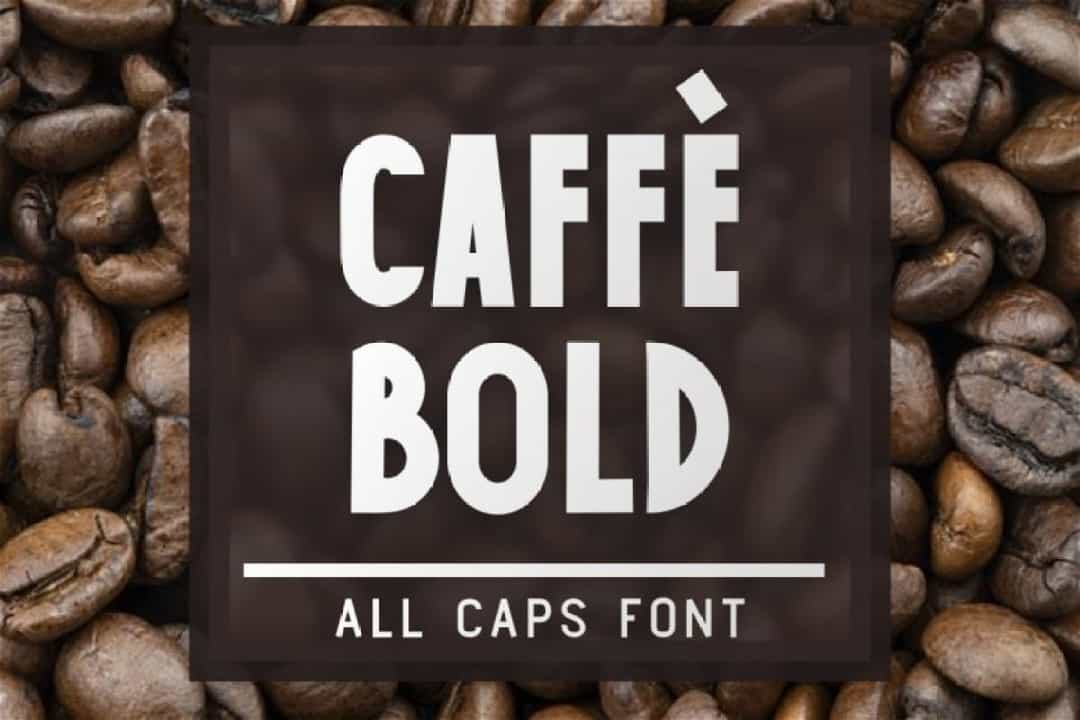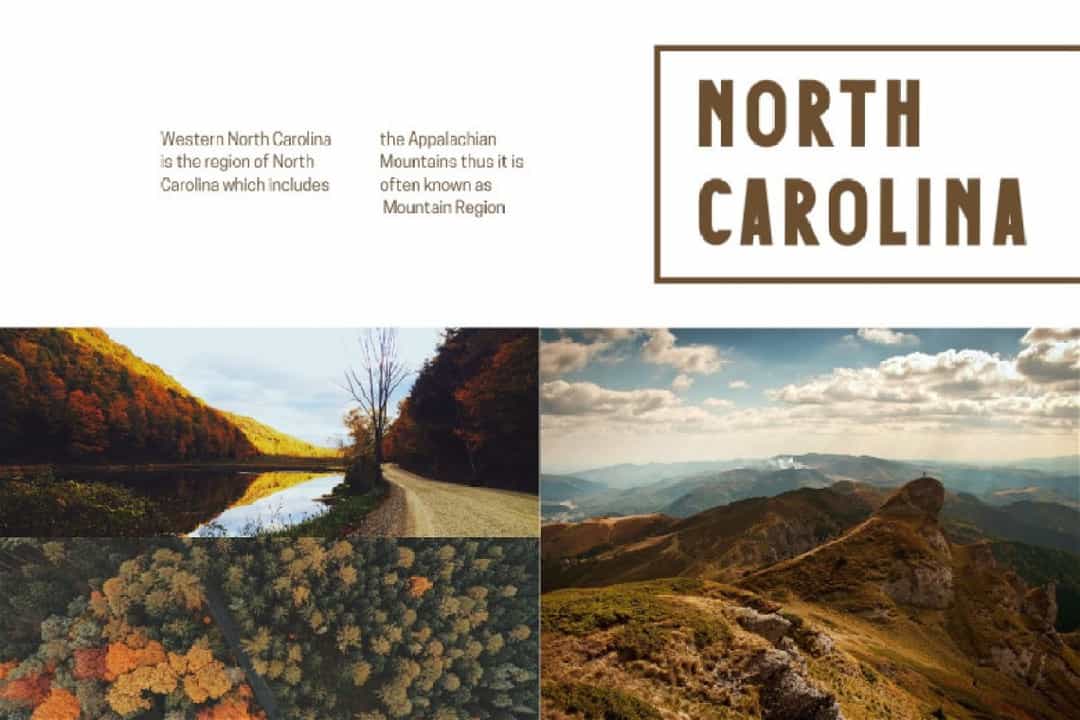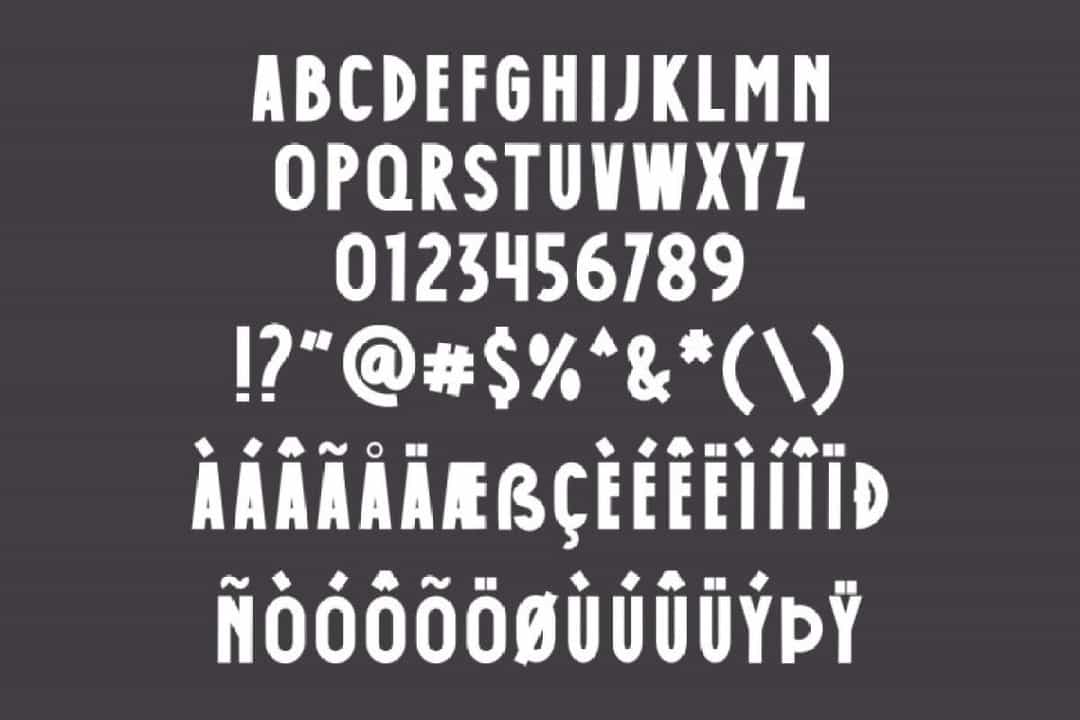
Caffe Bold can be characterized as a simple, yet quite daring sans serif font. It also contains uppercase numbers and lowercase punctuations, their alternatives and multilingual capabilities. It is versatile and can be used in many projects so go ahead and start integrating Caffe Bold into your projects, and watch them stand out!